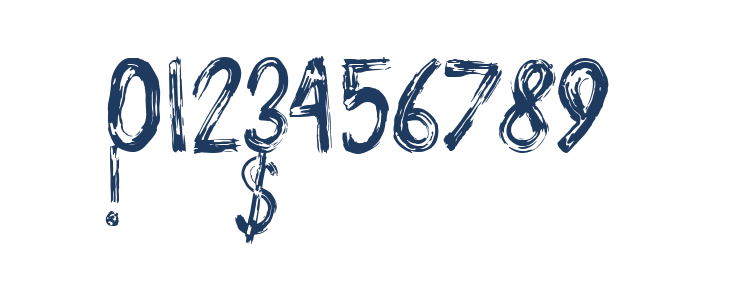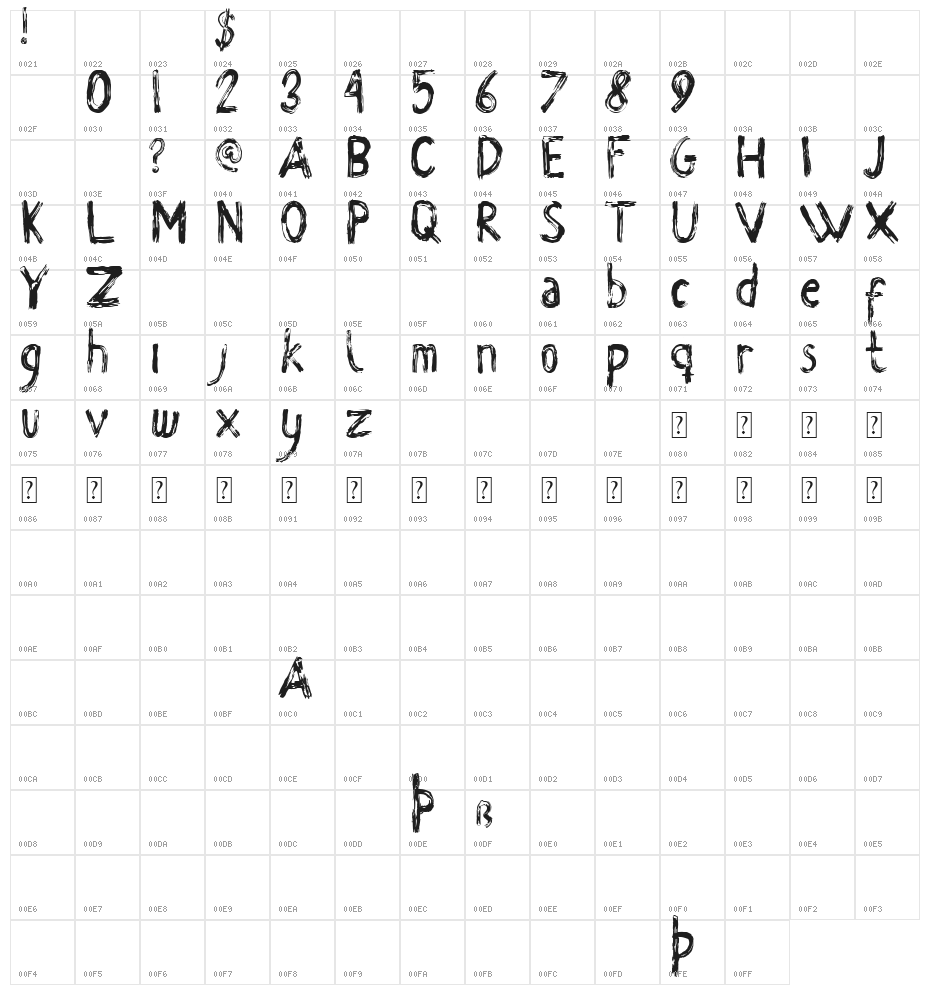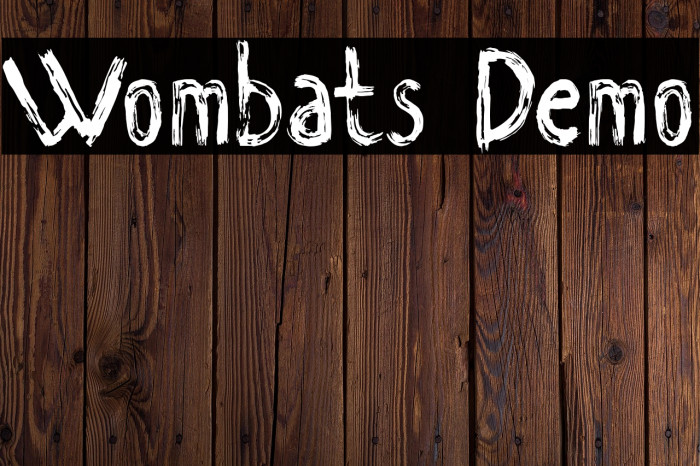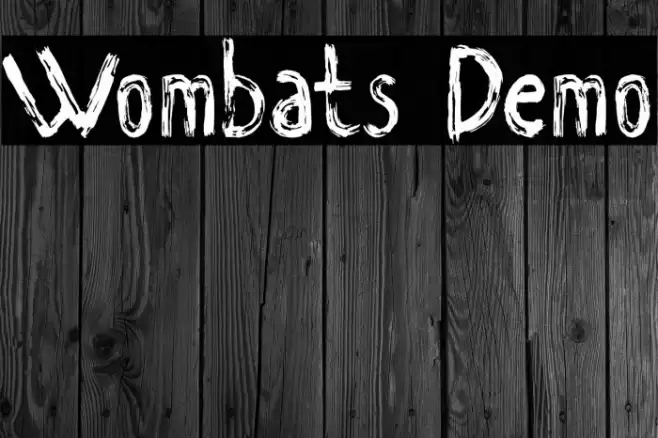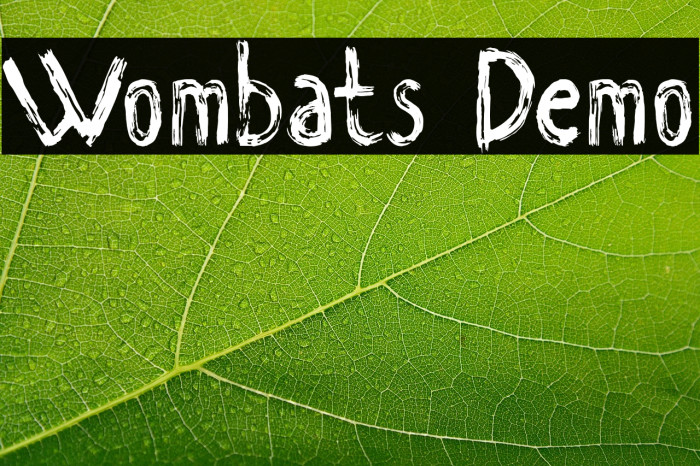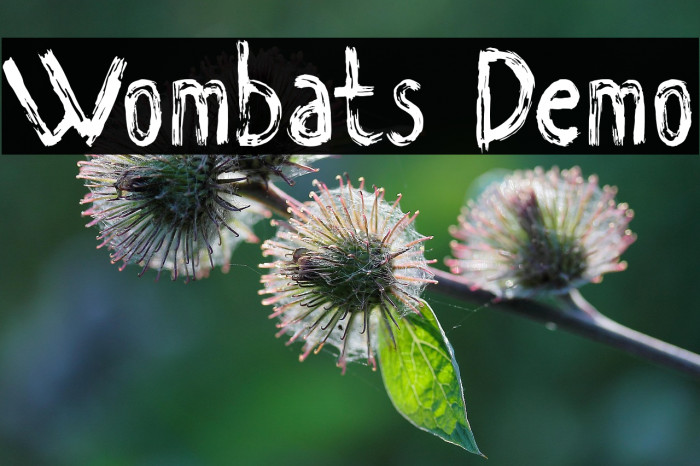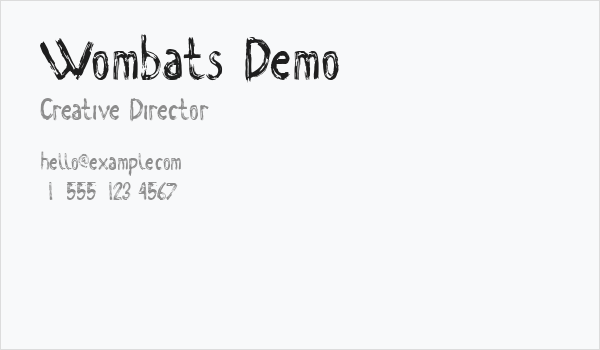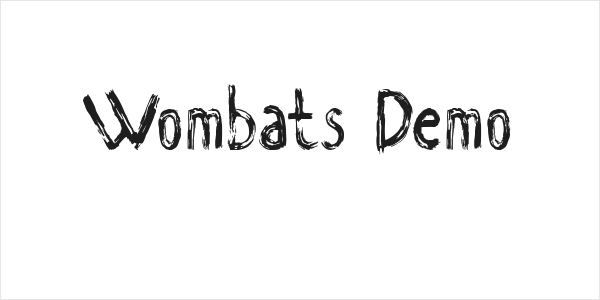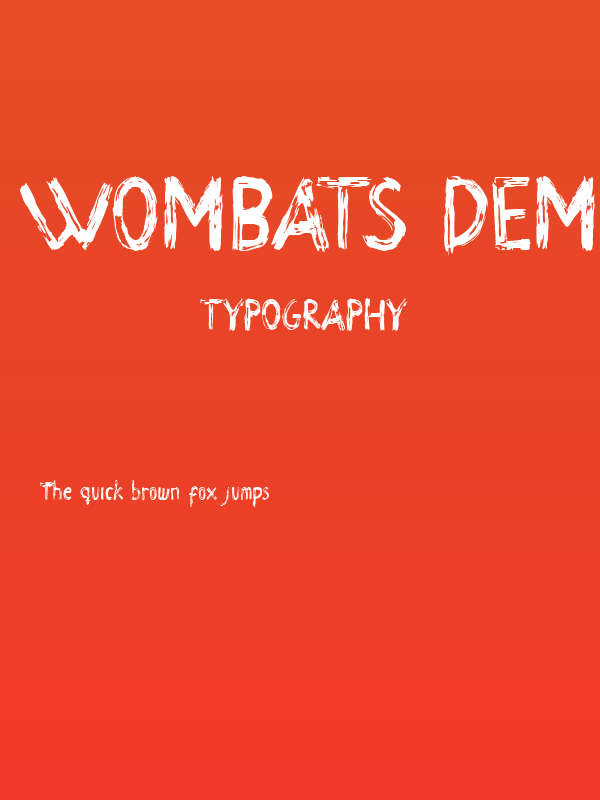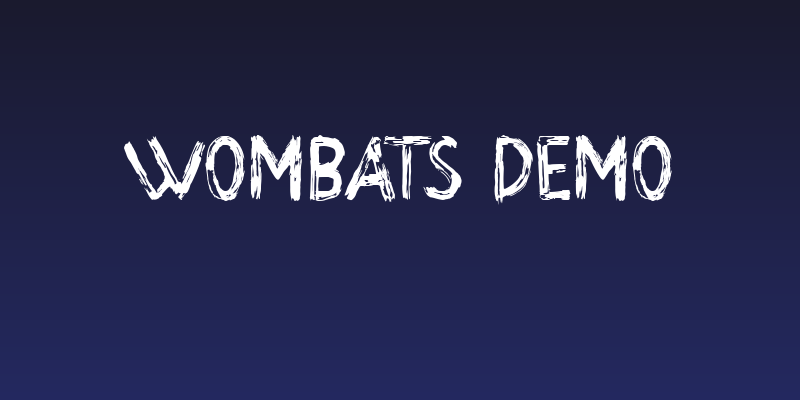
Wombats Demo Font
Wombats Demo Description
This font features a bold, brush-stroke style that exudes energy and dynamism. Each character appears as if it has been painted with a thick brush, creating a sense of movement and texture. The strokes are uneven, giving the font a raw and organic feel. The uppercase and lowercase letters maintain a consistent style, with the uppercase being slightly more pronounced. Numbers and special characters follow the same artistic brush theme, ensuring uniformity across all elements. This font is ideal for projects that require a bold statement or an artistic touch.
| Overall Style | Artistic, Dynamic |
| Proposed Projects | Ideal for posters, album covers, artistic branding, and creative advertising campaigns. |